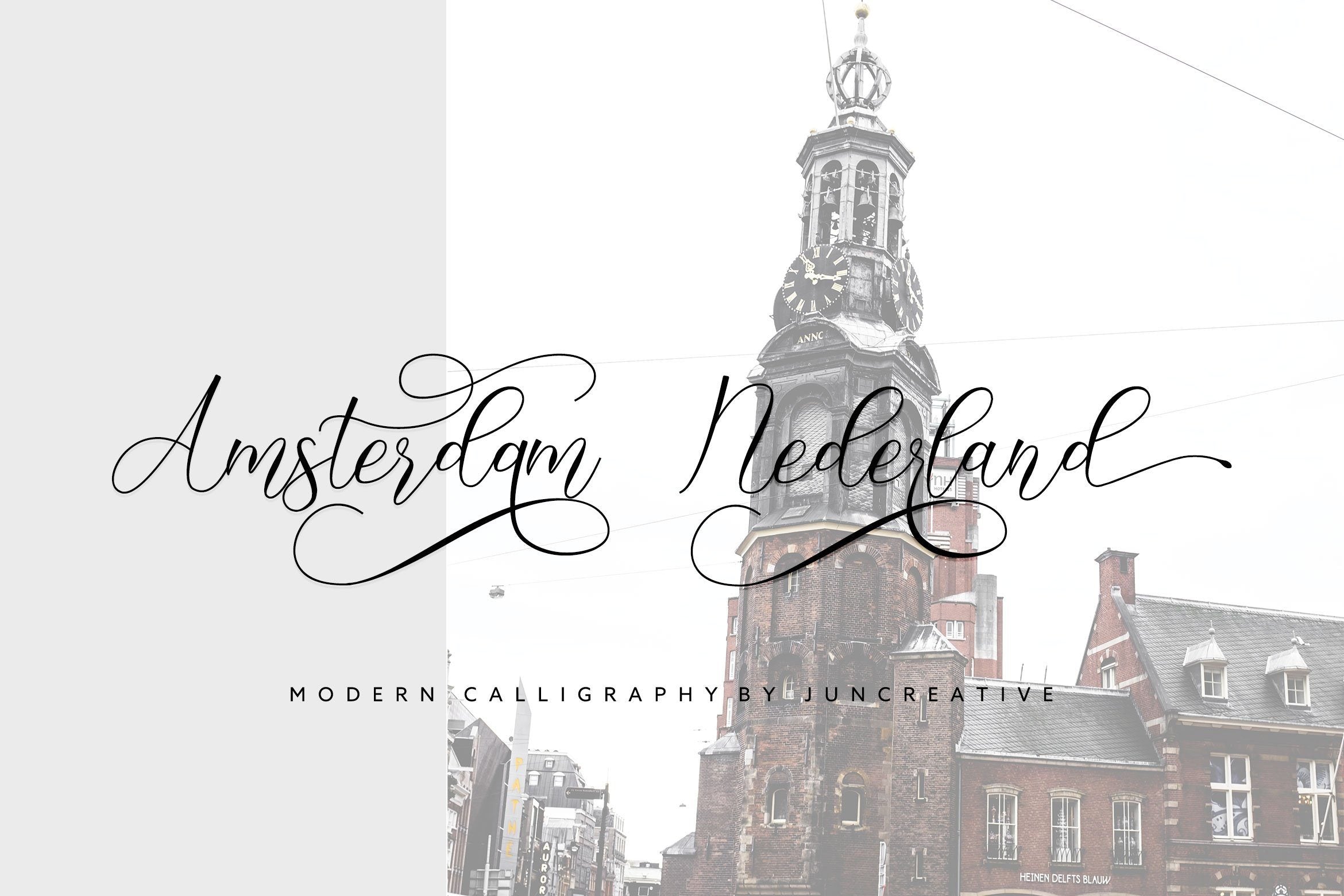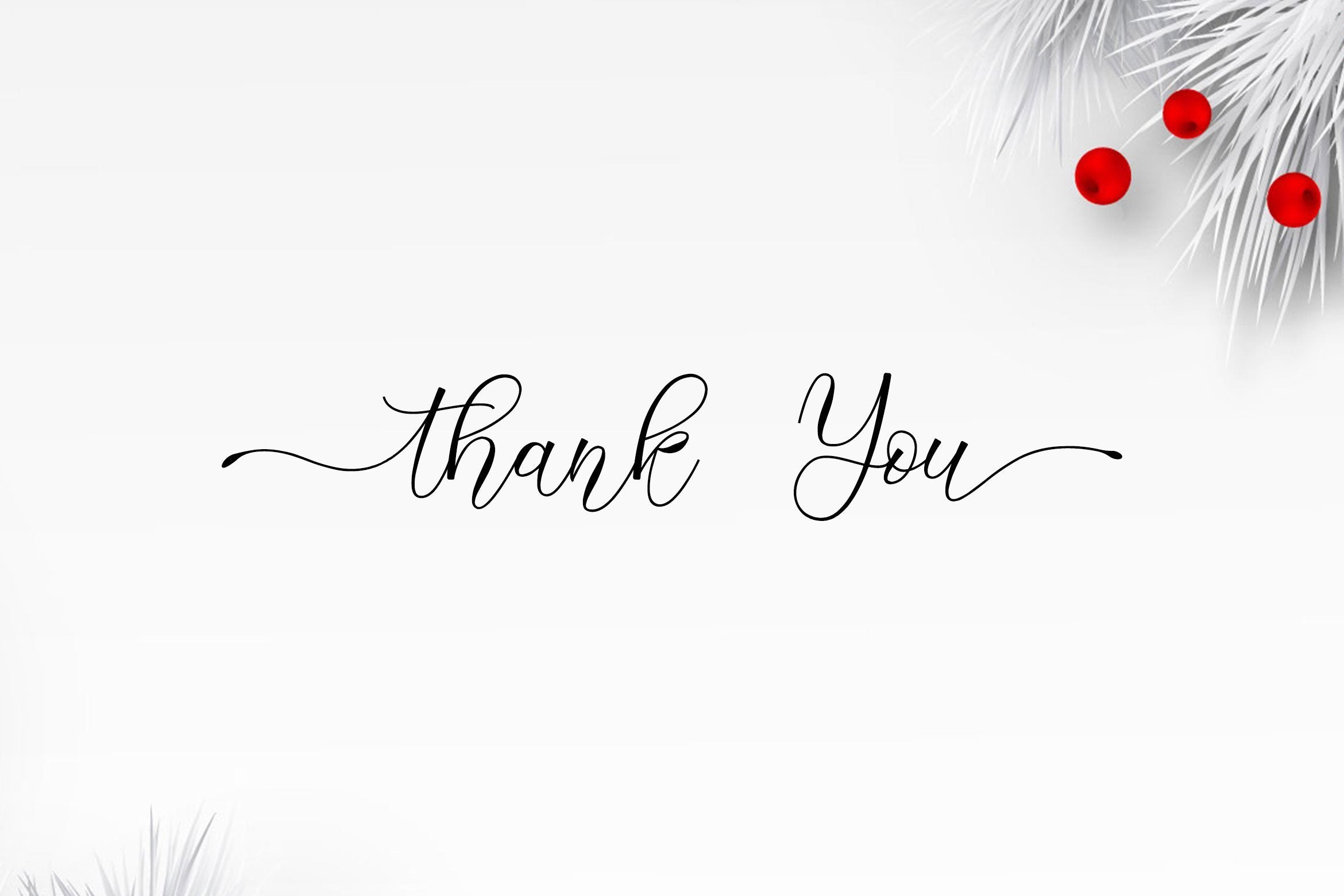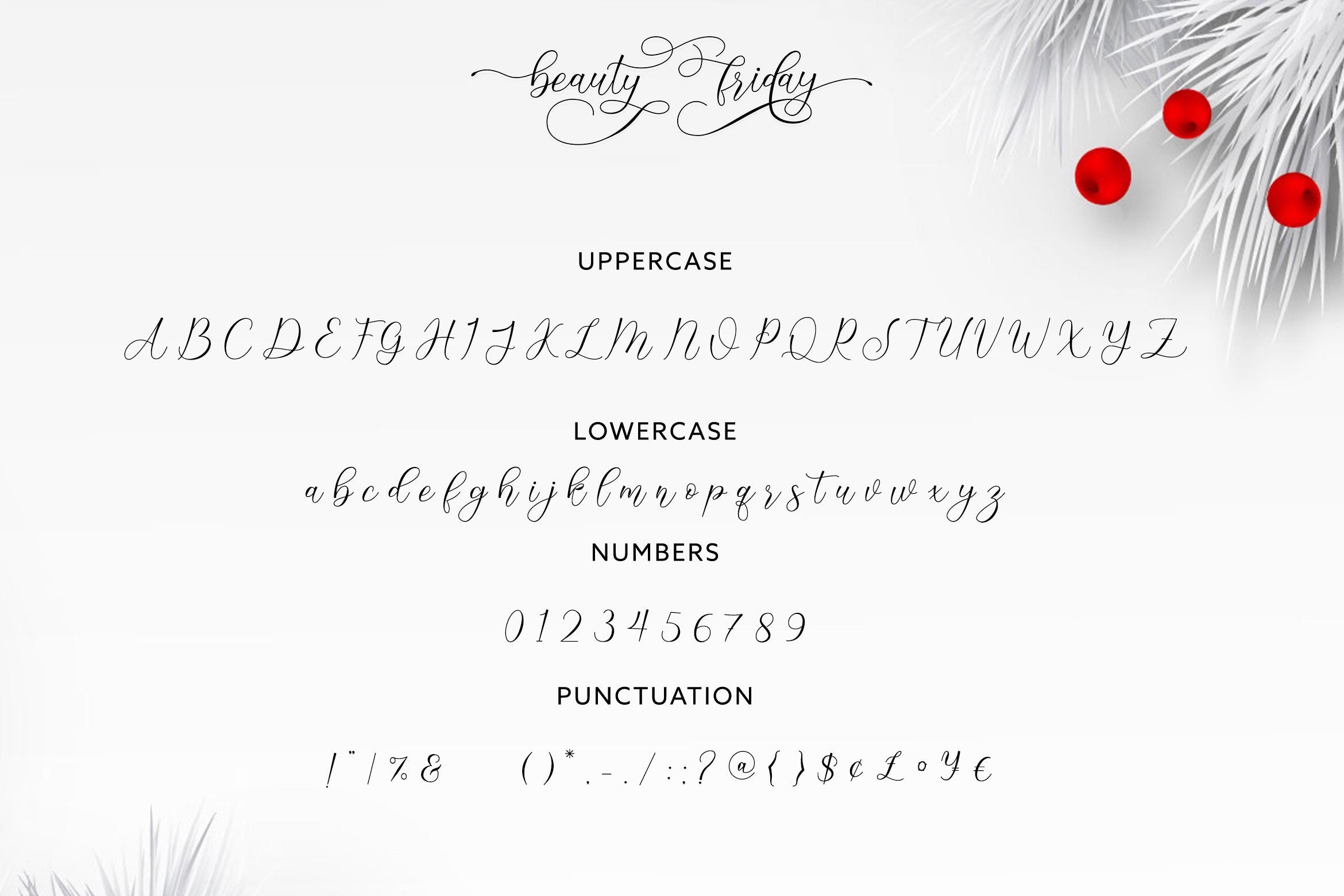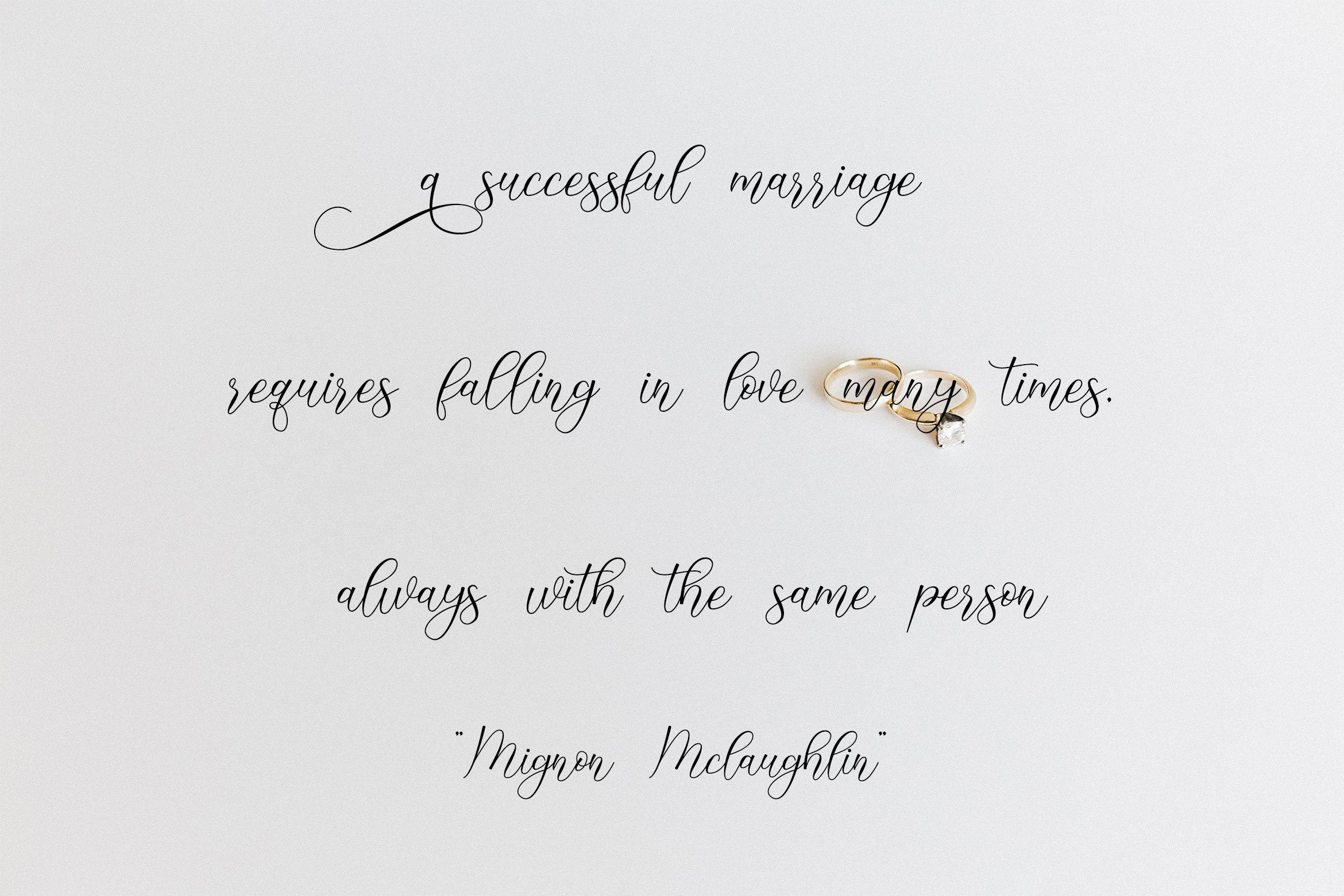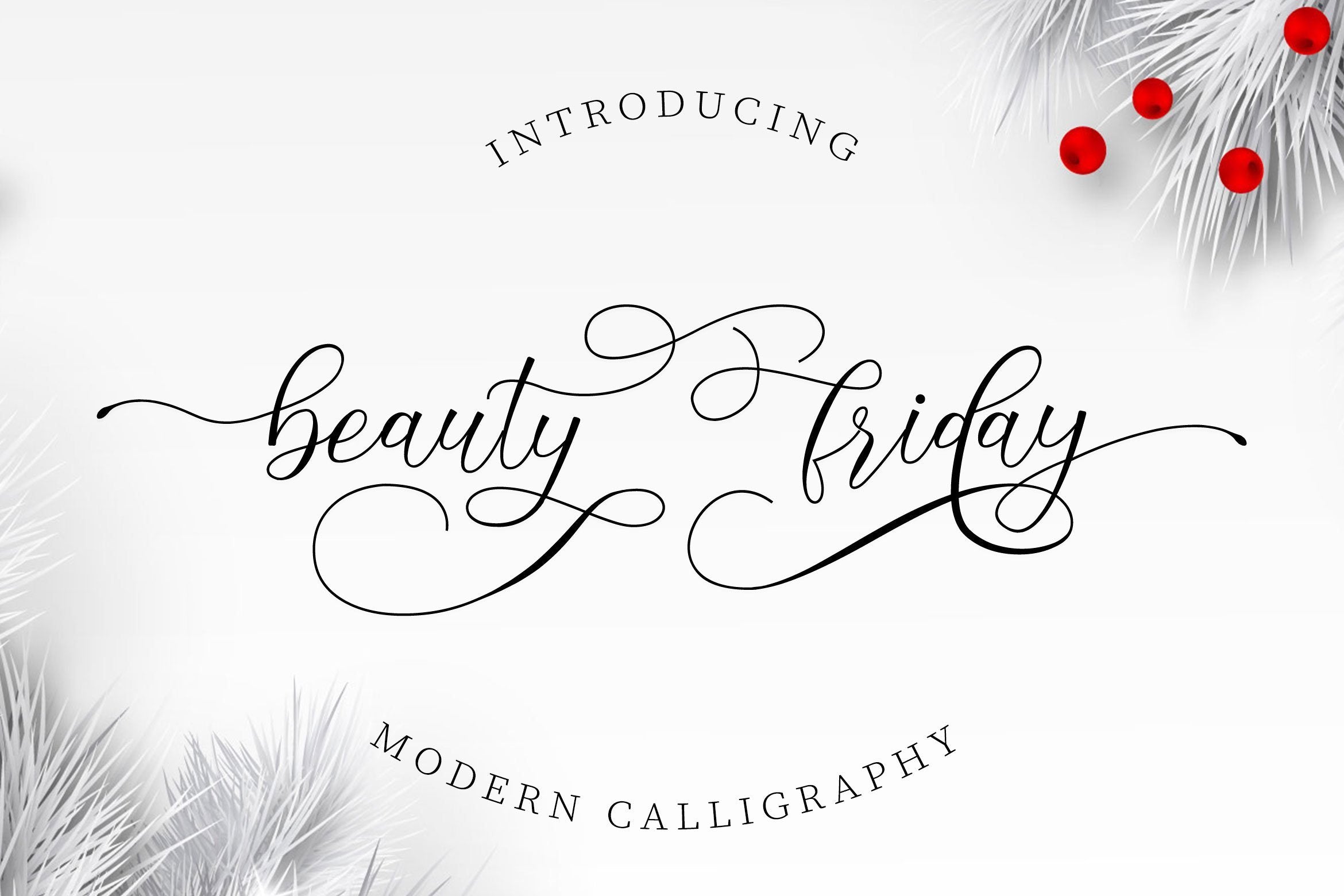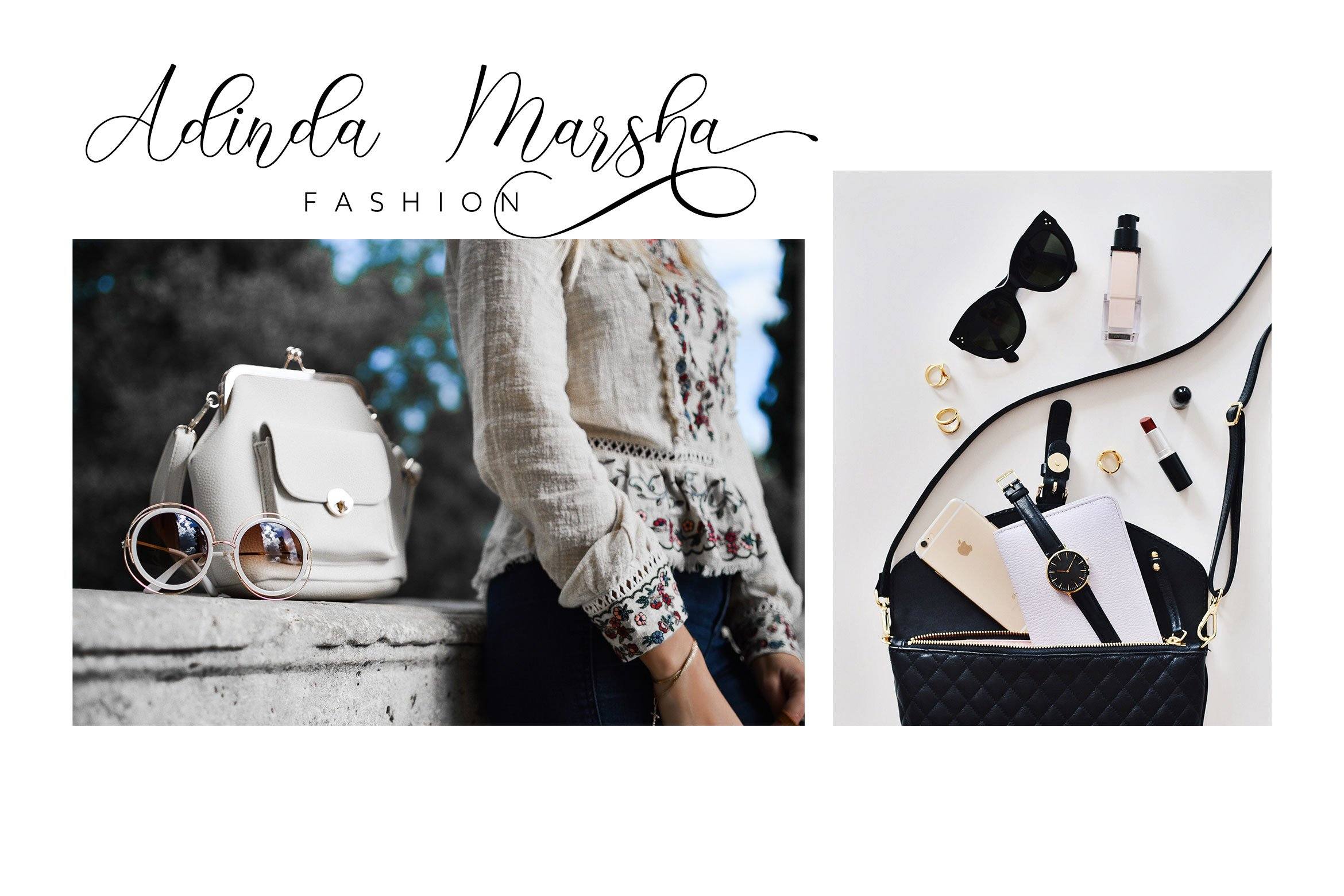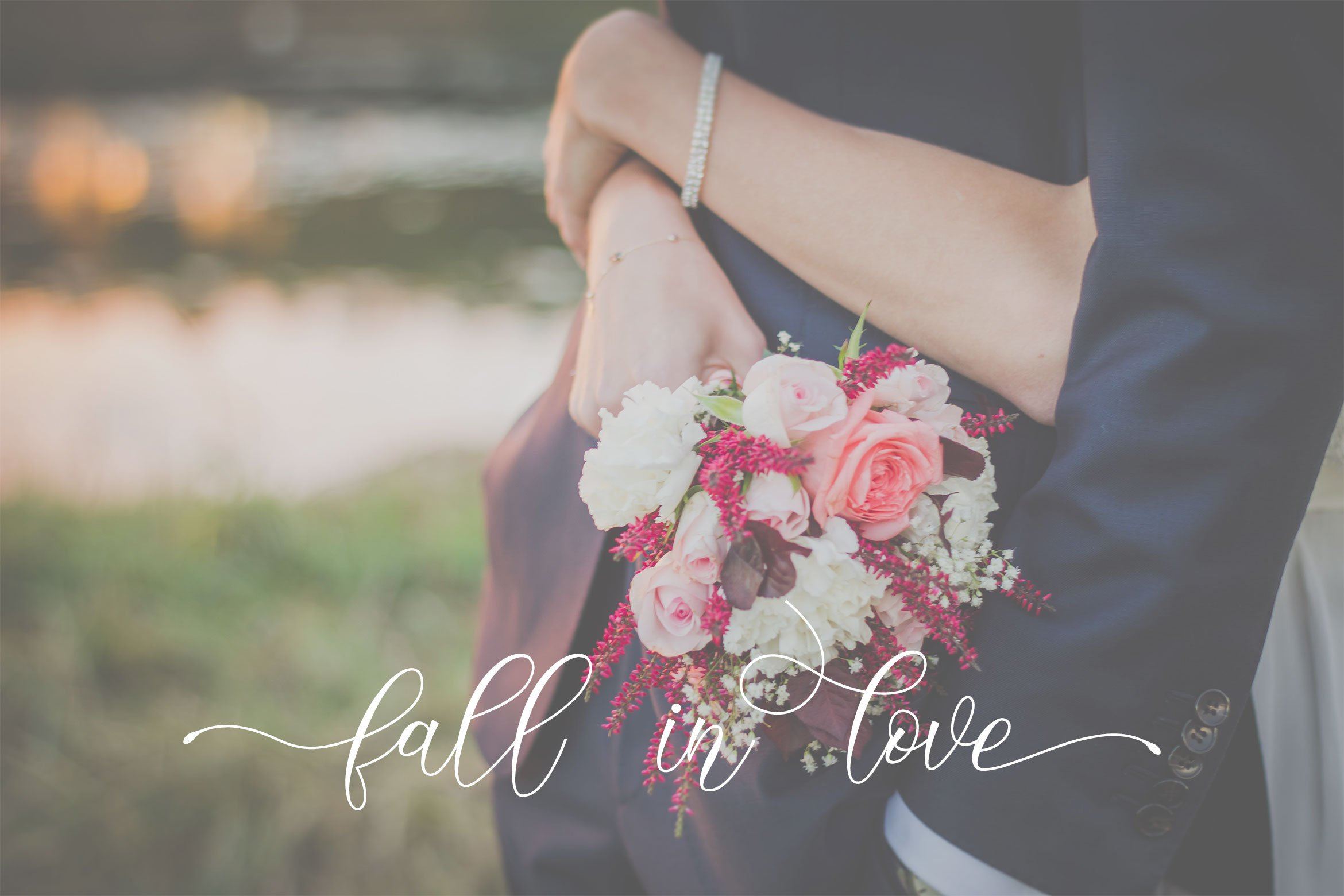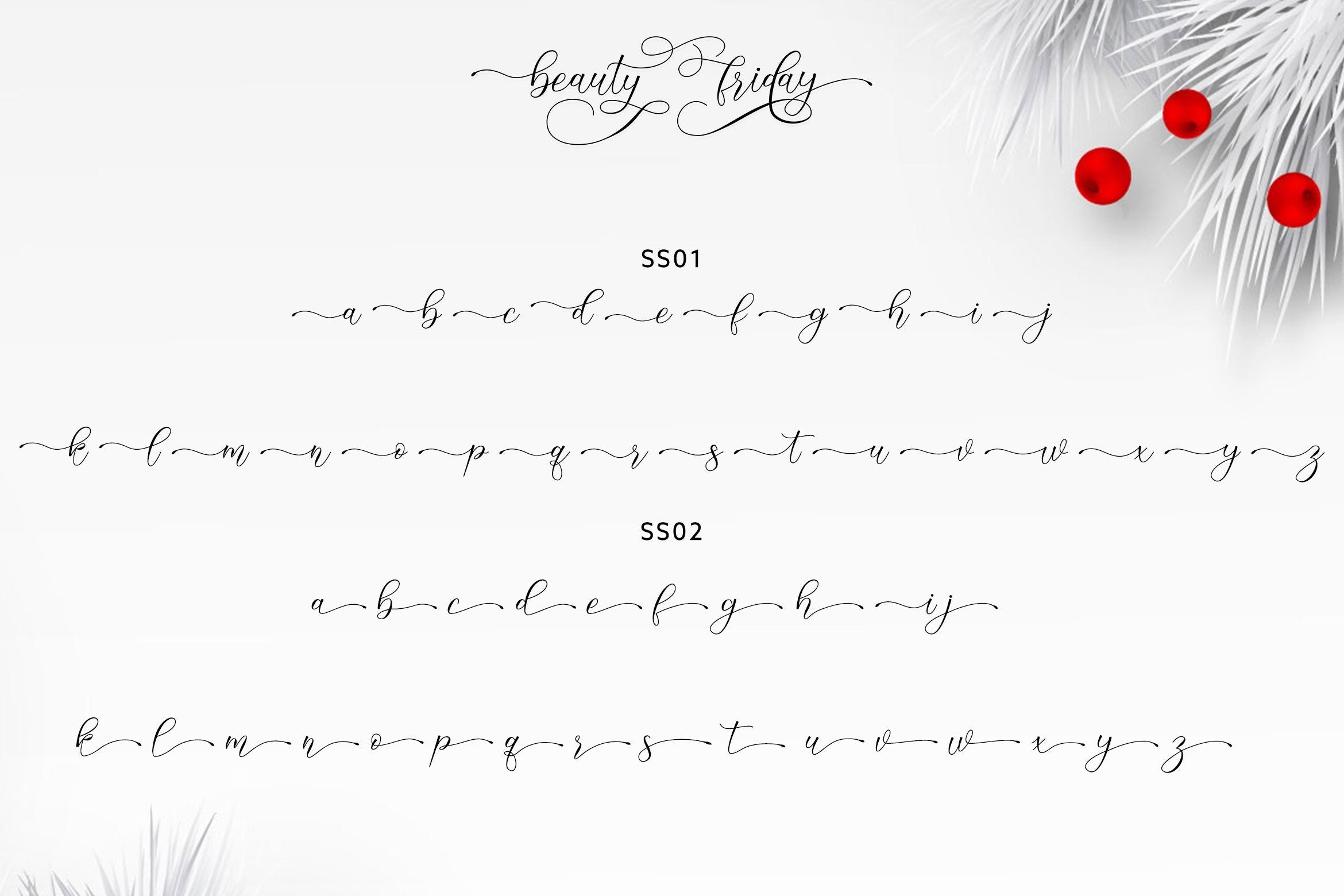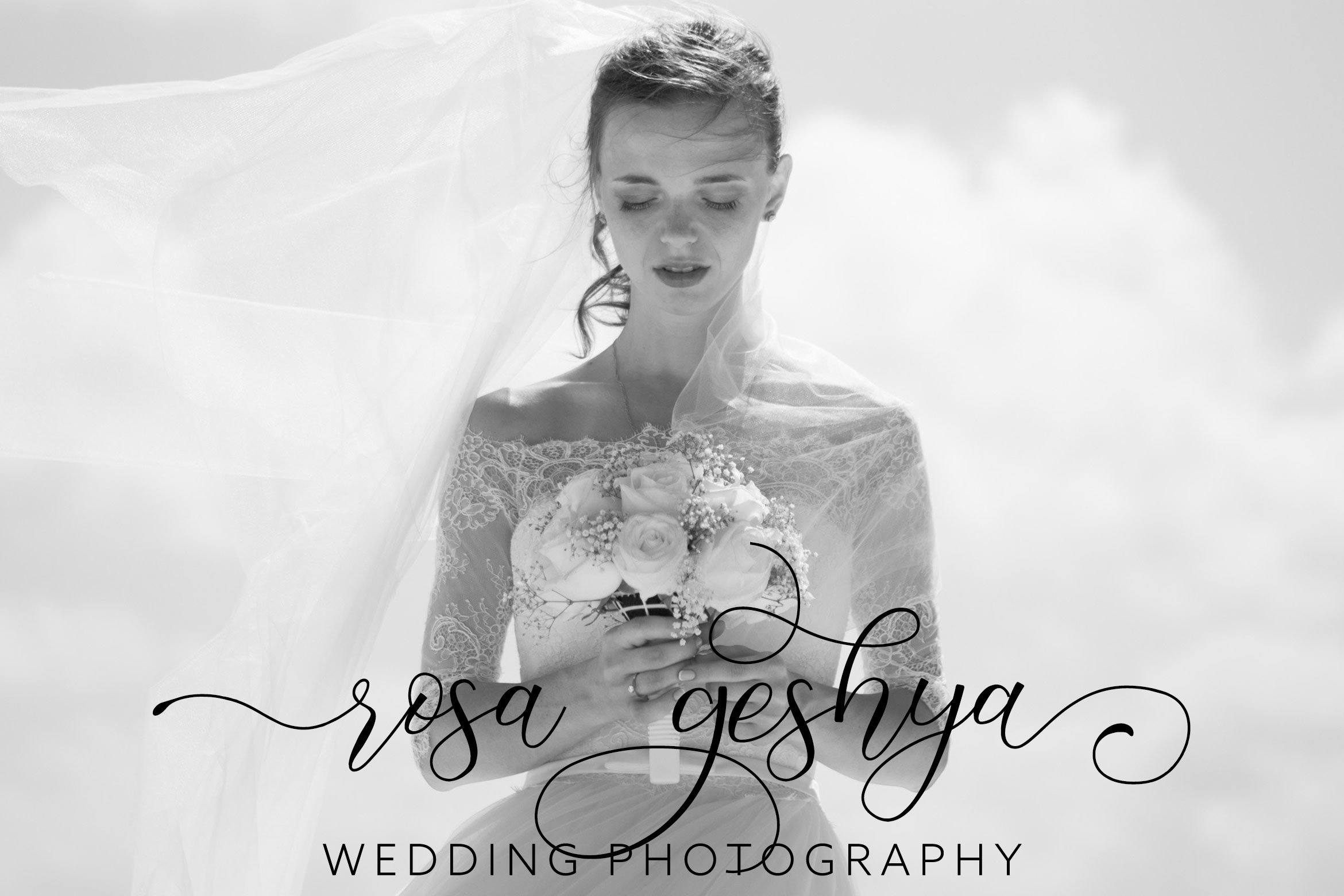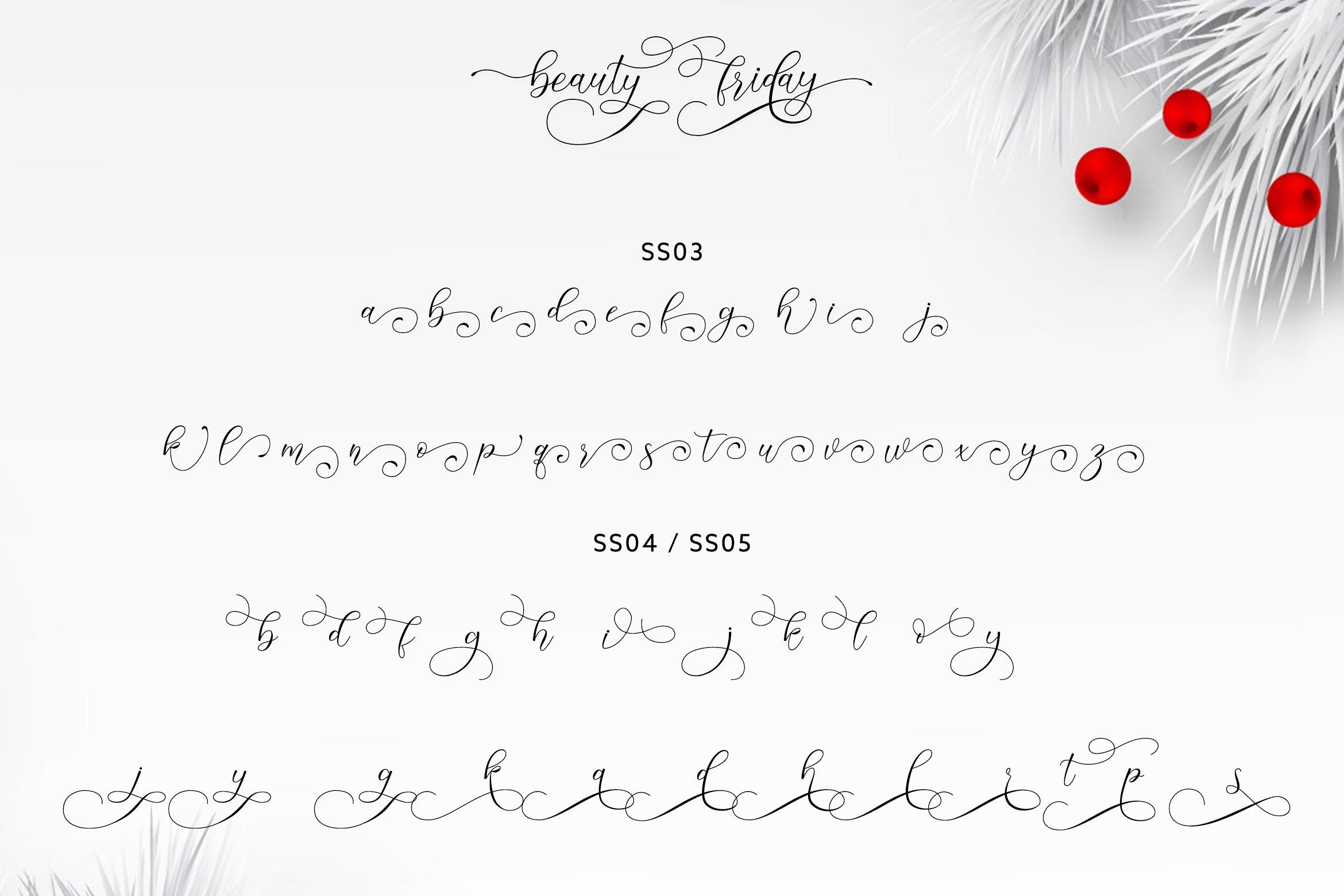
Beauty Friday
About Beauty Friday
Beauty Friday includes full set of lovely uppercase and lowercase letters, multilingual symbols, numerals, punctuation and ending lowercase swashes. is perfect fo you up coming projects. such as modern invitation design, branding stationery design, wedding, birthday, etc and any projects. FEATURES TTF/OTF/ Alternate Characters Uppercase and Lowercase letters Numbering and Punctuations Multilingual Support Works on PC or Mac Simple Installation Support Adobe Illustrator, Adobe Photoshop, Adobe InDesign, also works on Microsoft Word